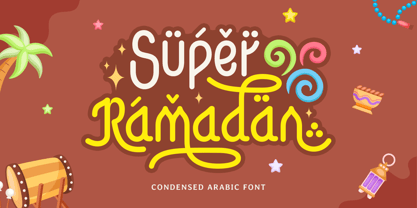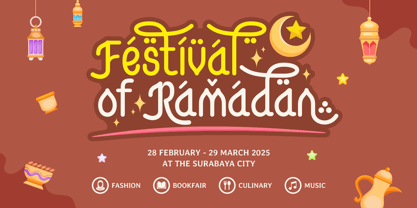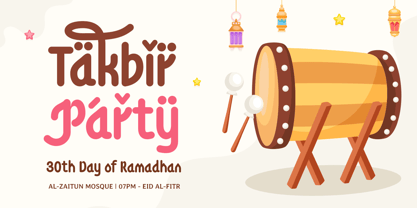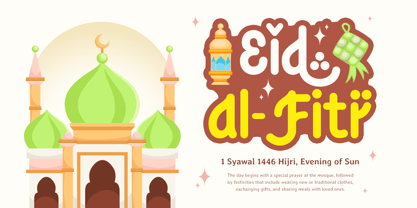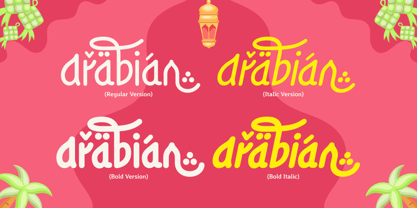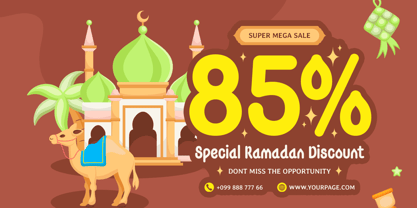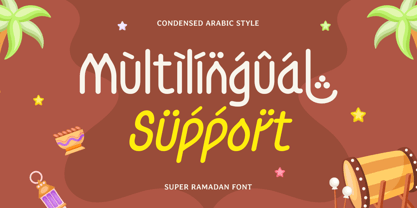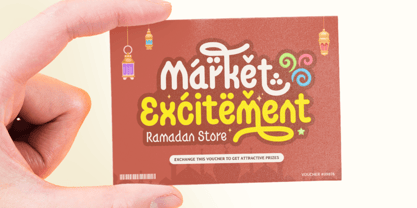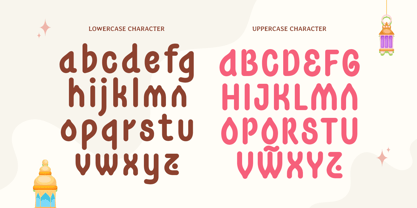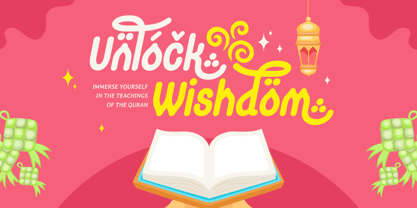
Super Ramadan
Super Ramadan - Condensed Arabic Font
Super Ramadan is a condensed Arabic font designed to bring modernity and tradition together in a bold and impactful way. Perfect for Ramadan-themed projects, branding, and promotional materials, its compact and stylish characters ensure maximum legibility and elegance. This font is ideal for creating captivating designs that leave a lasting impression.
Inspired by the rich cultural heritage of Arabic calligraphy, Super Ramadan introduces a contemporary twist with its condensed style. Whether used in banners, social media posts, or product packaging, it conveys a strong and dynamic message while maintaining a refined aesthetic. Super Ramadan enhances the visual appeal of any project, making it a perfect choice for designers seeking an Arabic font with a modern edge.
Transform your designs with Super Ramadan, a font crafted to honor the beauty of the Arabic script while offering flexibility and sophistication. Its condensed structure ensures your messages stand out in both print and digital media.
Super Ramadan Condensed Arabic Font Features:
• Stylish Condensed Arabic Characters
• Bold and Modern Design Aesthetic
• Punctuation, Numbers, and Symbols
• Uppercase and Lowercase
• Opentype Features
Multilingual Characters available for: